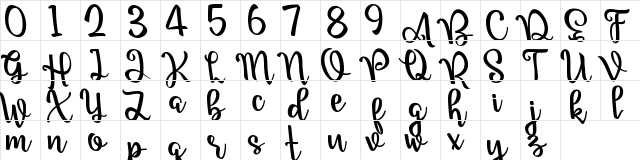
Nour Manise Regular
Design Context for Nour Manise Typeface
Nour Manise is a composed and adaptable typeface that performs quietly and consistently across a wide range of design contexts.